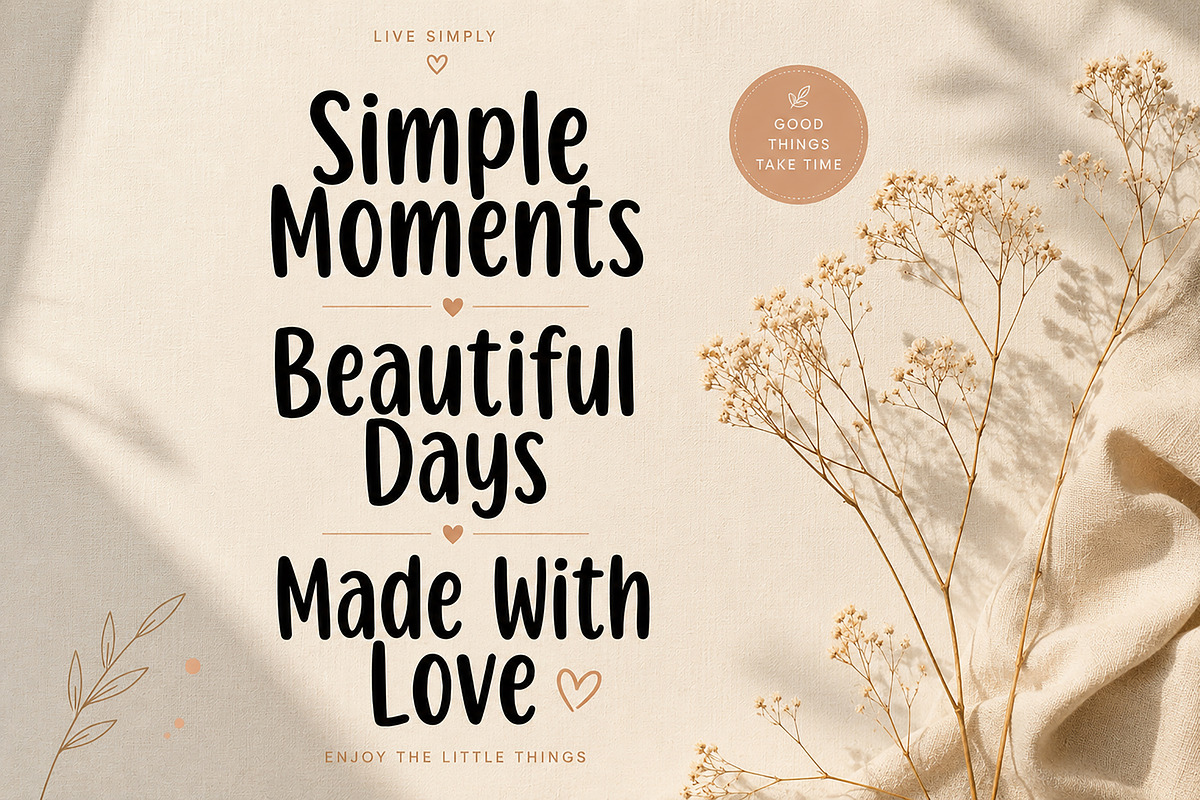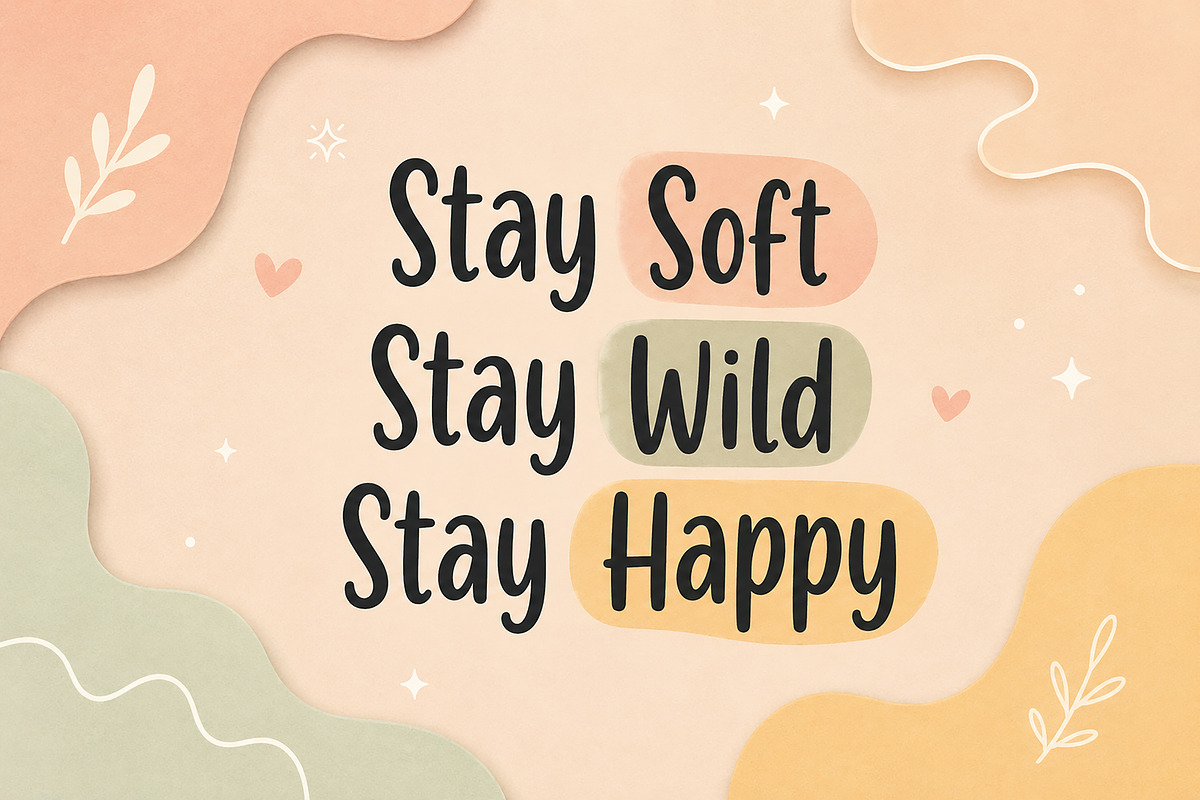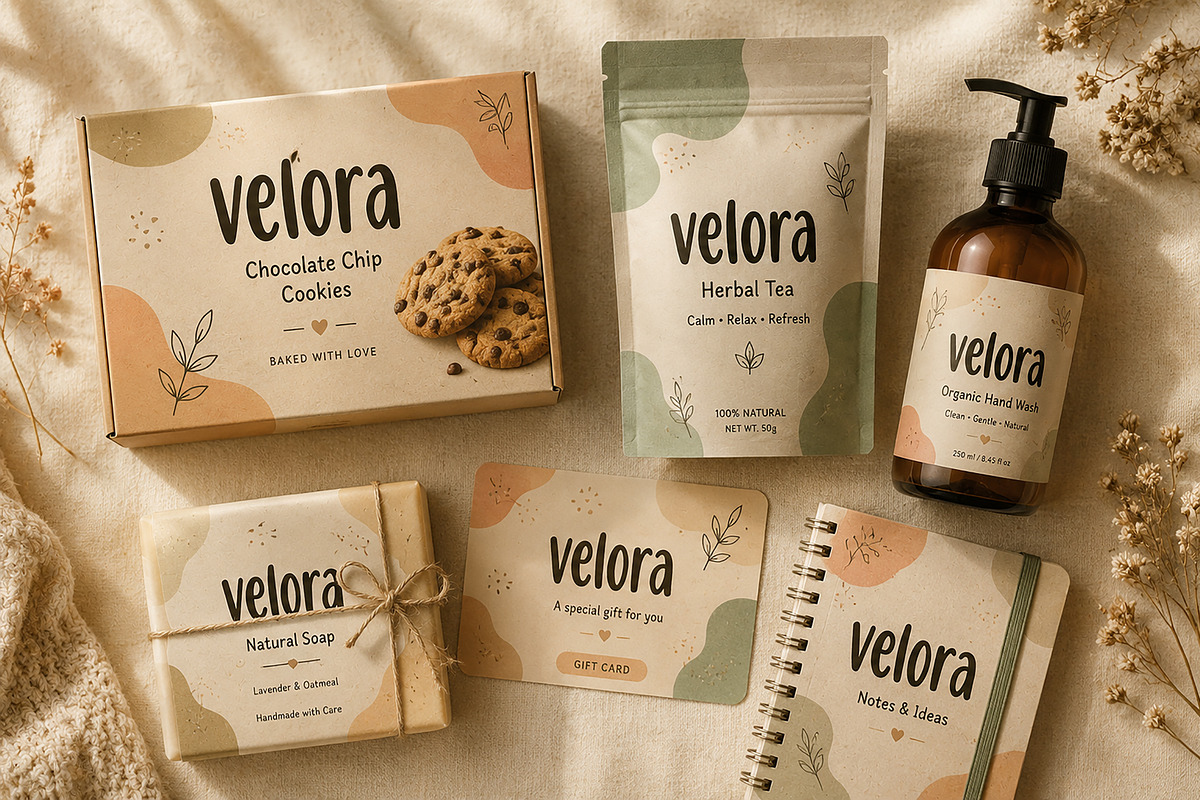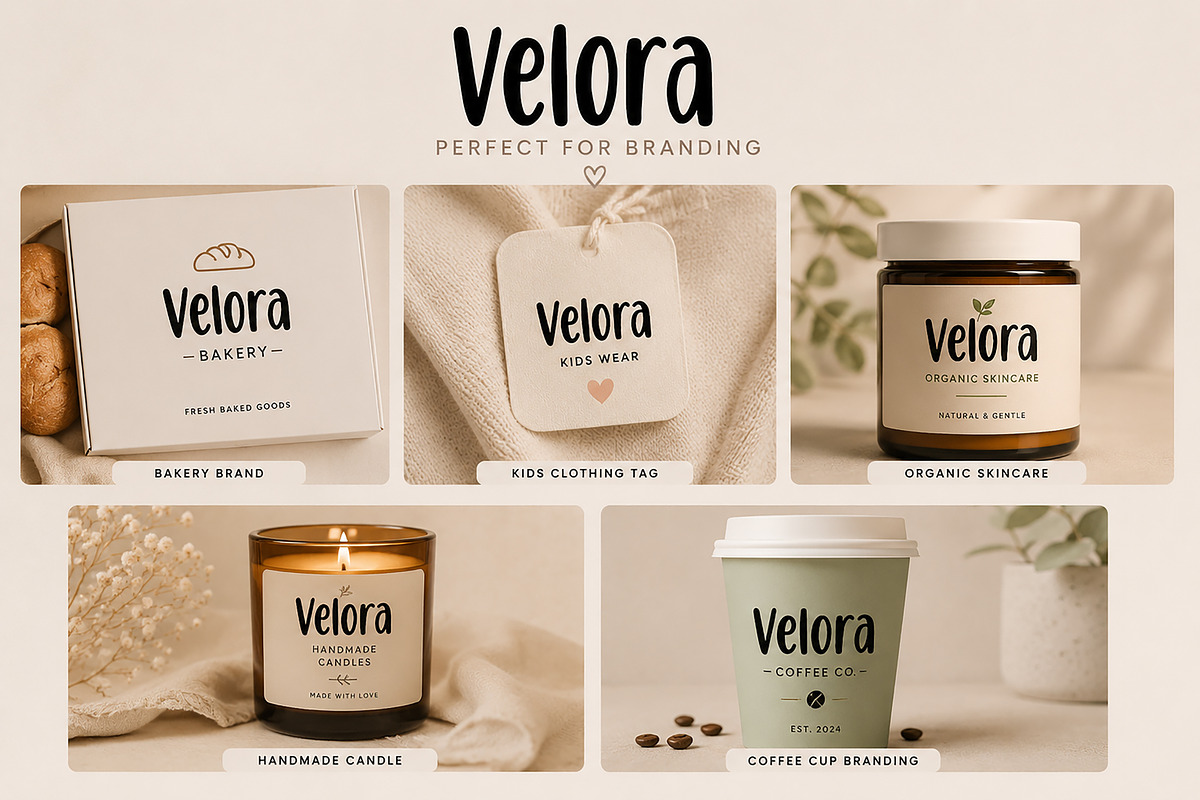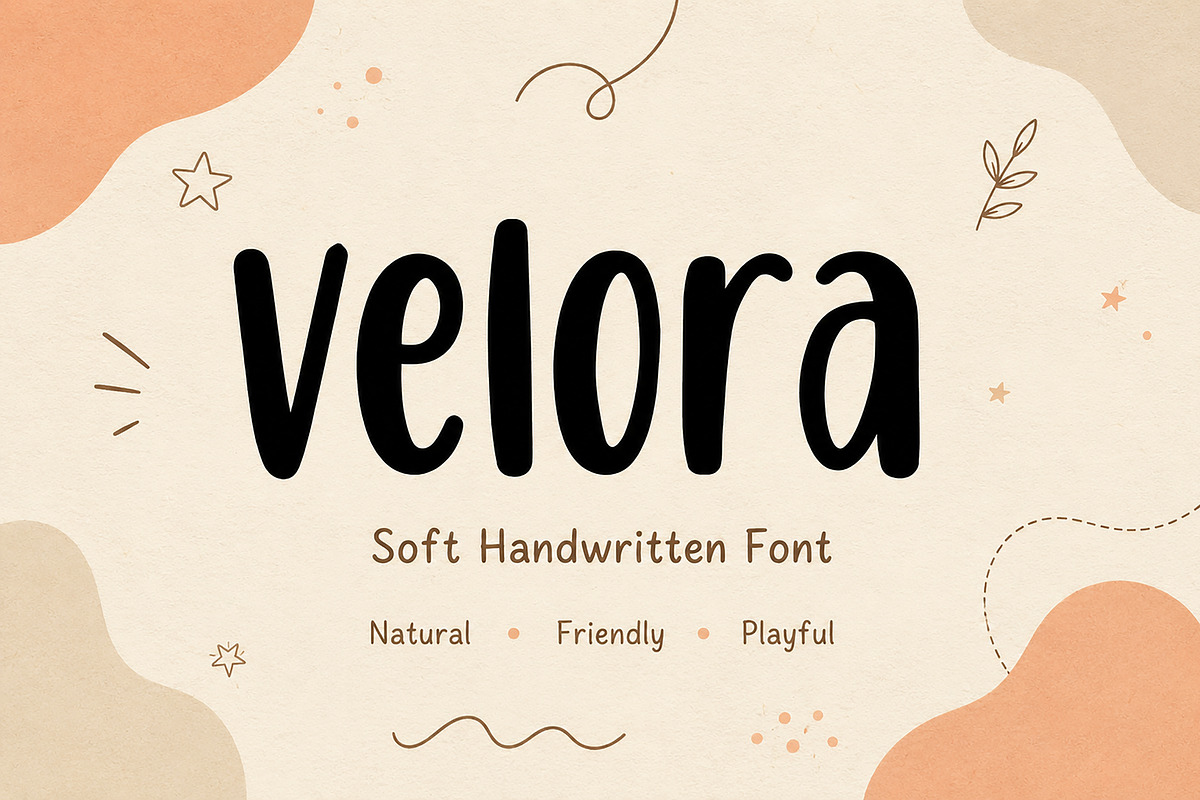
Velora
Velora – Soft Handwritten Font
Velora is a soft and playful handwritten font crafted to bring warmth, charm, and authenticity to your creative projects. With its natural flow, friendly curves, and casual handwritten feel, Velora is perfect for branding, packaging, social media, logos, quotes, invitations, and lifestyle designs.
Designed with a clean yet expressive style, Velora adds a personal touch while keeping your design modern and approachable. Whether you’re creating bakery branding, kids’ products, organic labels, handmade packaging, or editorial layouts, this font gives your work a warm and memorable personality.
Velora works beautifully for both digital and print projects, making it a versatile choice for designers, crafters, and brand creators.
Logo design
Branding projects
Product packaging
Social media posts
Quotes & posters
Invitations
Handmade product labels
Kids branding
Lifestyle magazines
Cricut & DIY crafts
Bring softness, joy, and handmade charm into your designs with Velora.